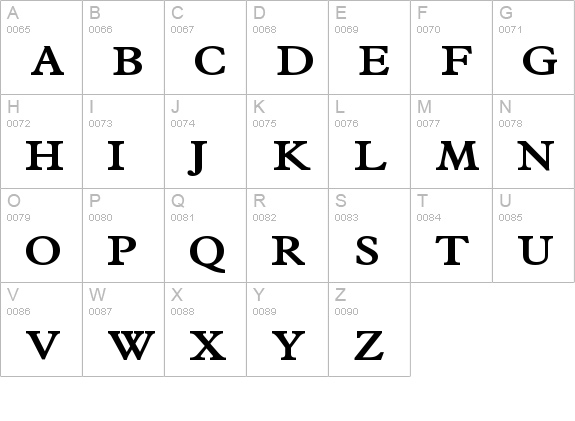
Nadine Wide Bold is a strong, high-contrast, extended-width variant in the Nadine typeface family \xE2\x80\x94 well suited to headlines, attention-grabbing titles, and strong calls-to-action.
The Nadine Wide Bold font is a striking and modern typeface that commands attention with its bold and wide letterforms. Perfect for adding a touch of boldness and emphasis to your designs, Nadine Wide Bold is versatile and eye-catching. Its strong presence makes it ideal for headlines, titles, and other display purposes. The font exudes confidence and power, making it a great choice for projects that require a bold statement. What's even better is that Nadine Wide Bold is available for free download at FontsMarket.com. This means you can easily access this impressive font and incorporate it into your projects without any cost. Don't miss out on this opportunity to enhance your designs with the impactful Nadine Wide Bold font. Download it today and let your creativity shine!